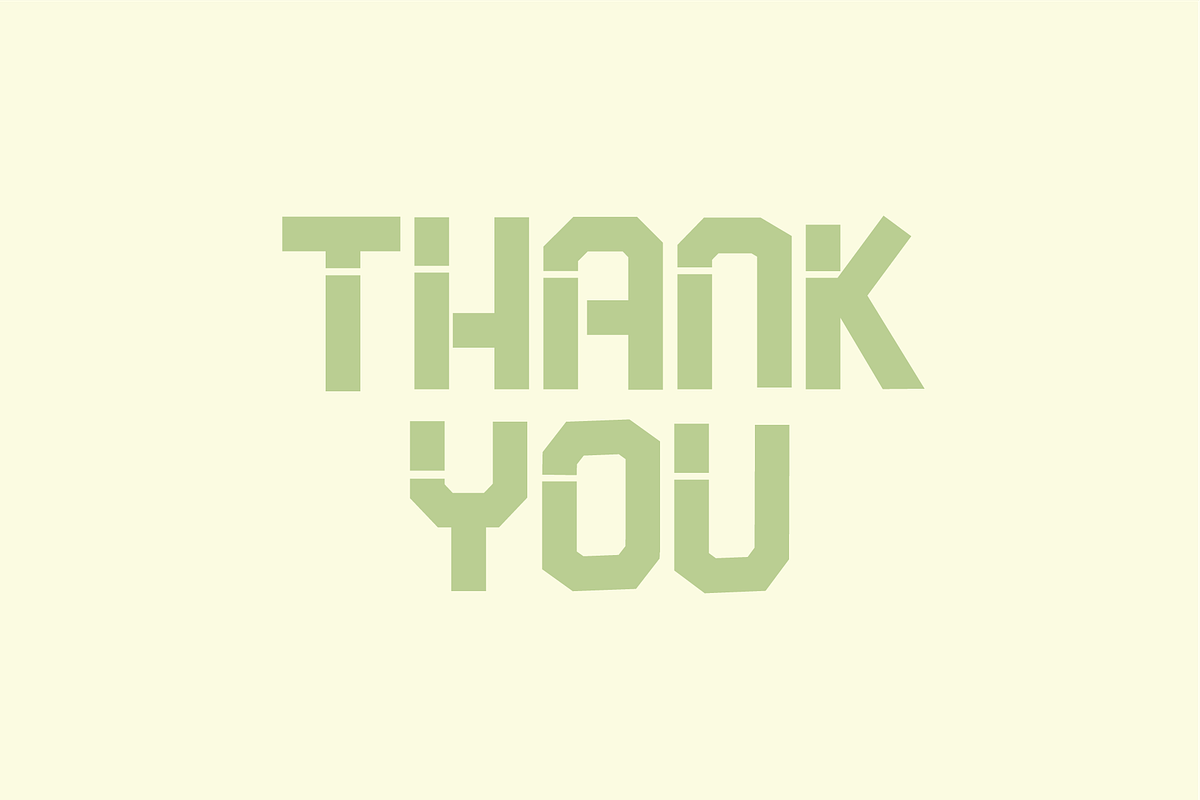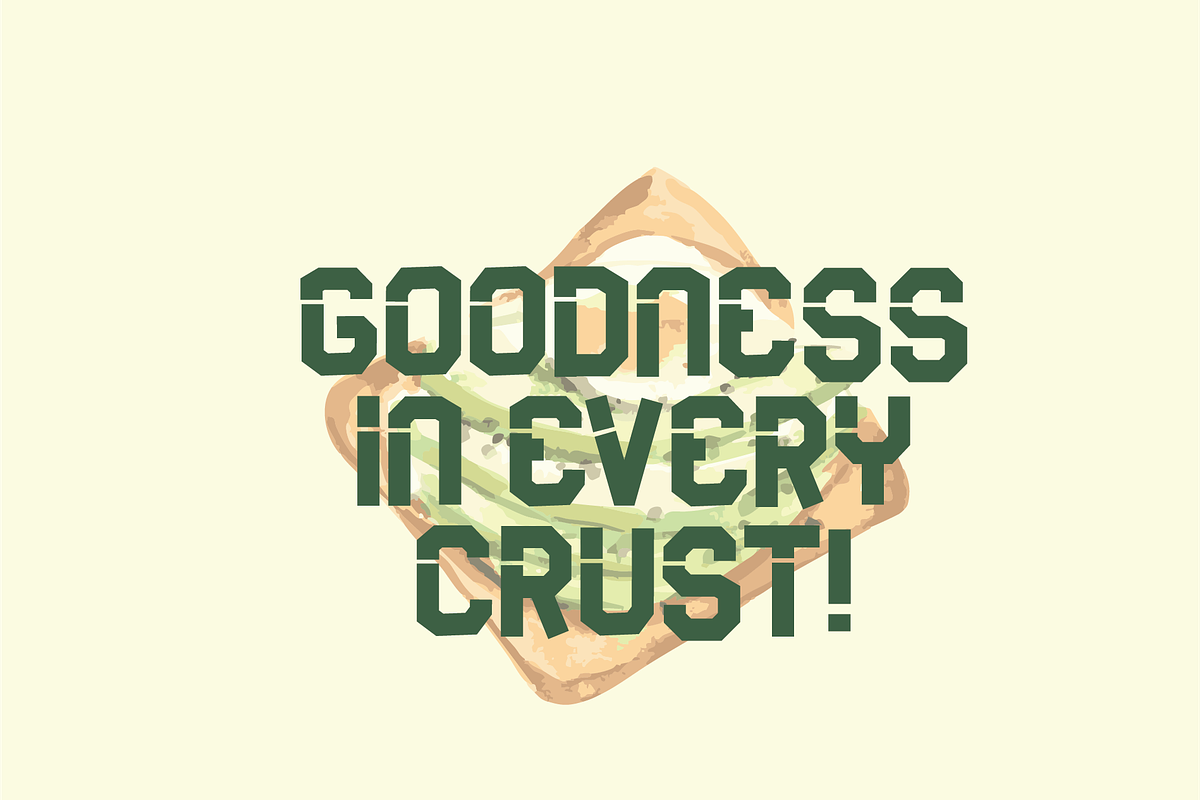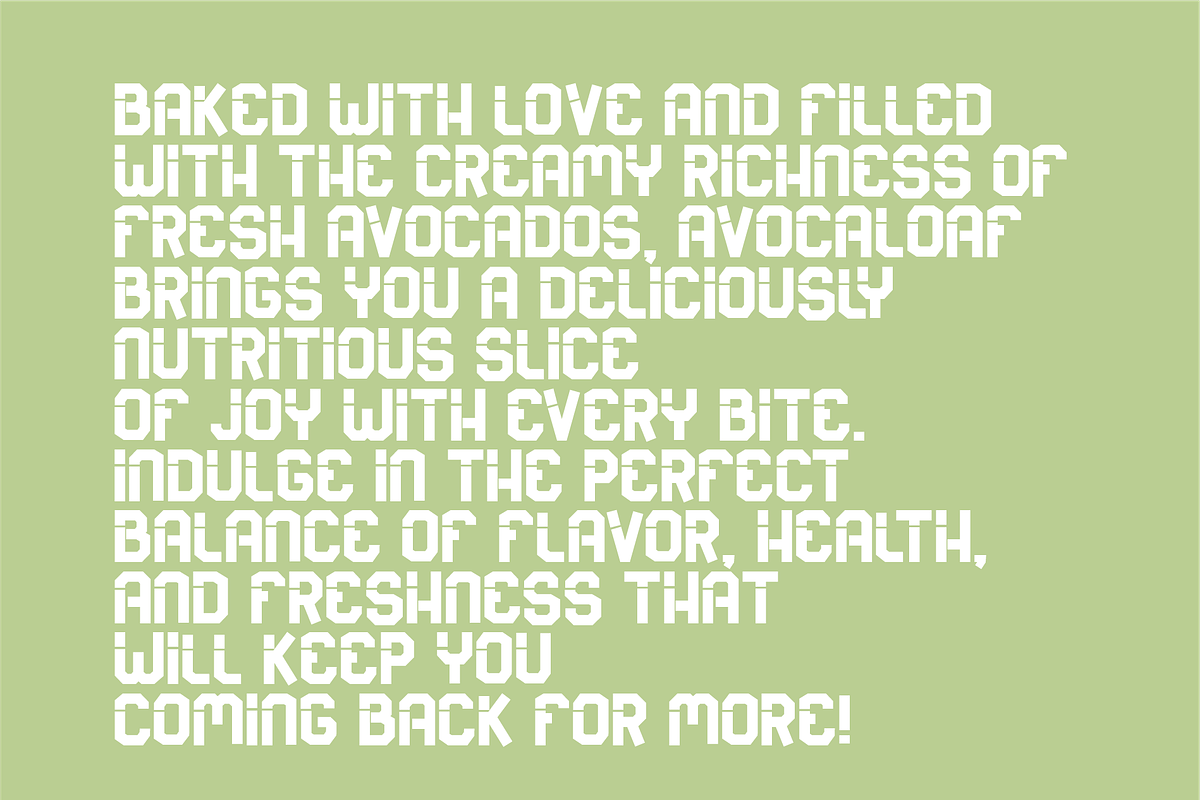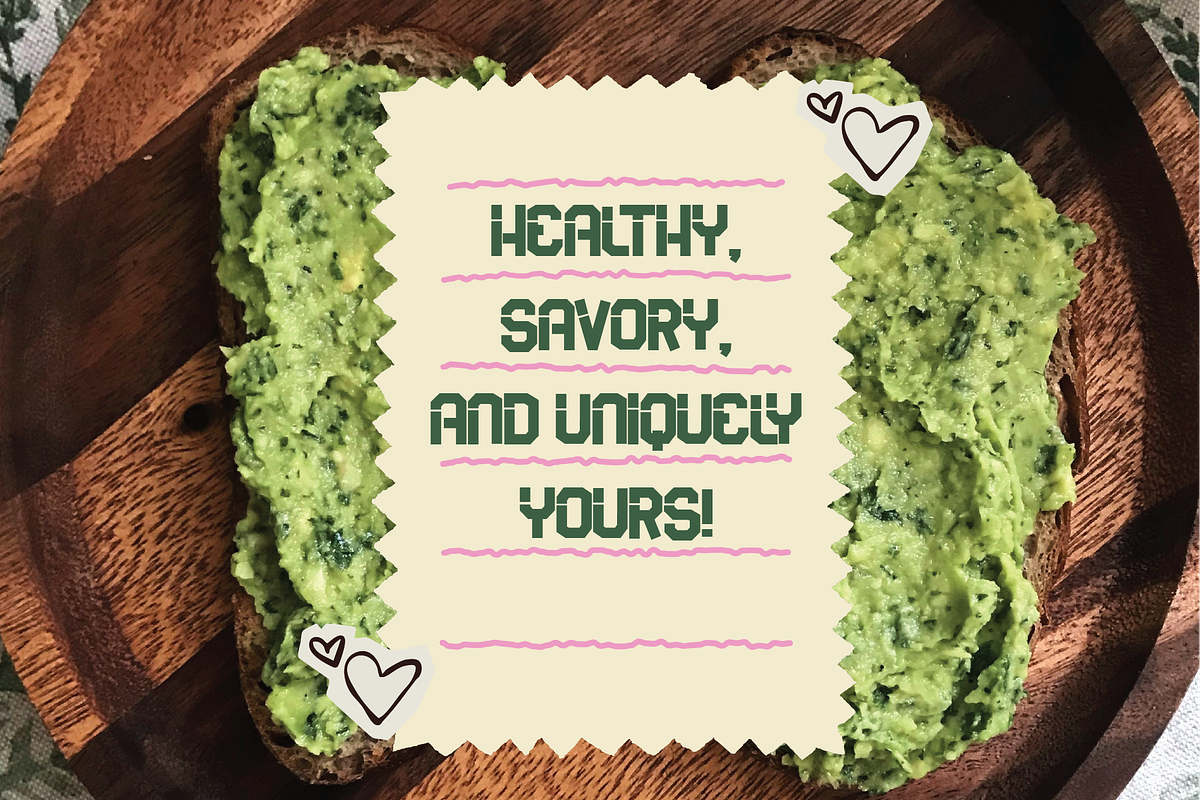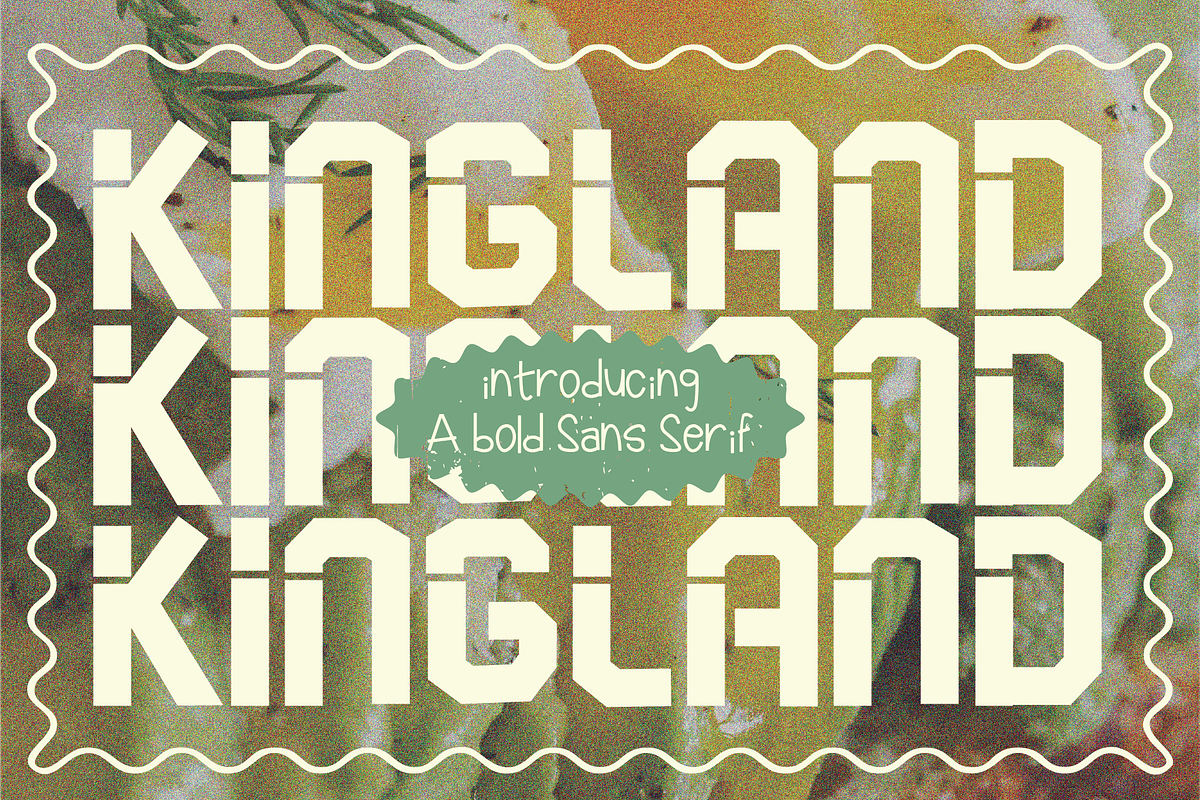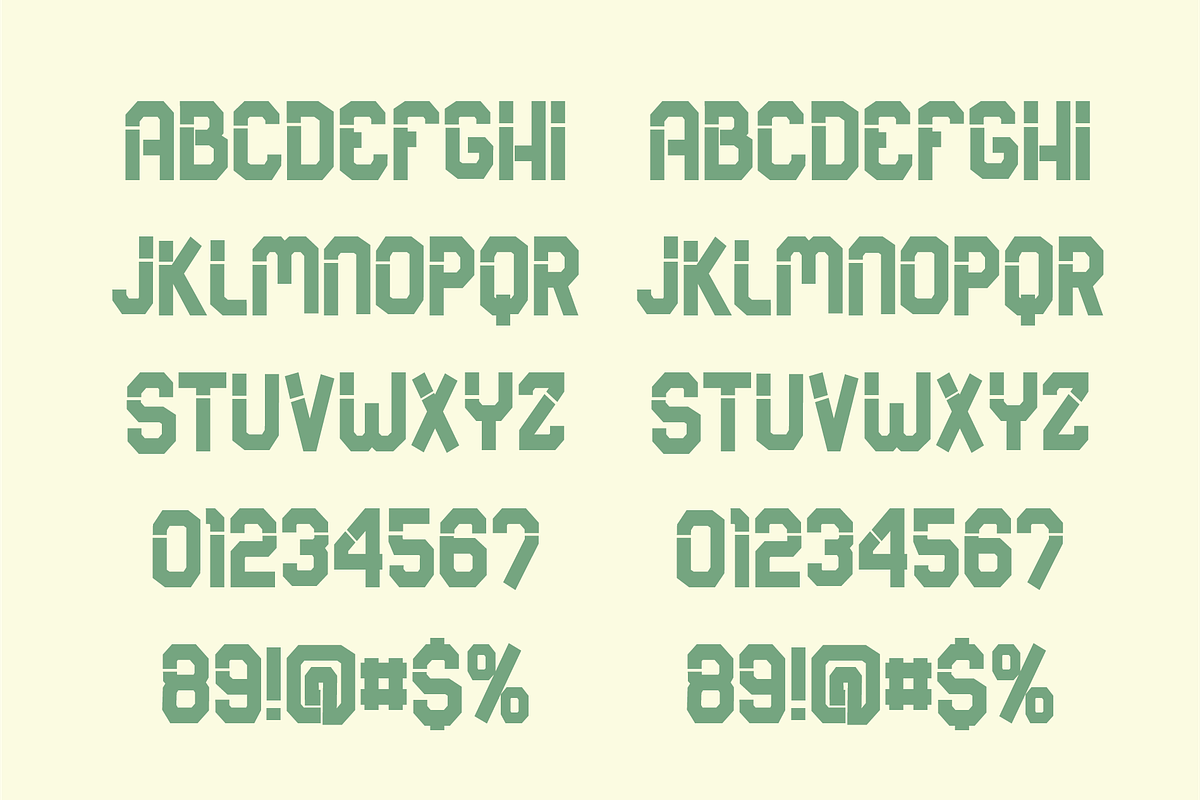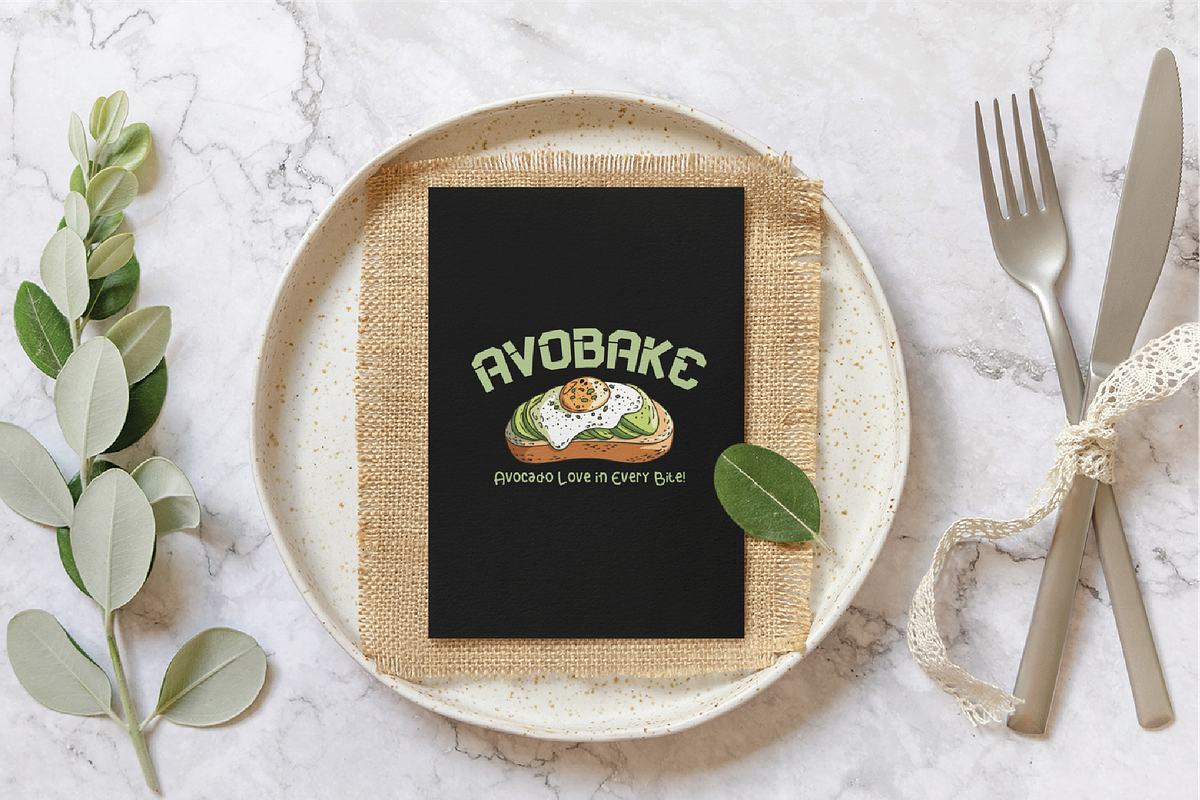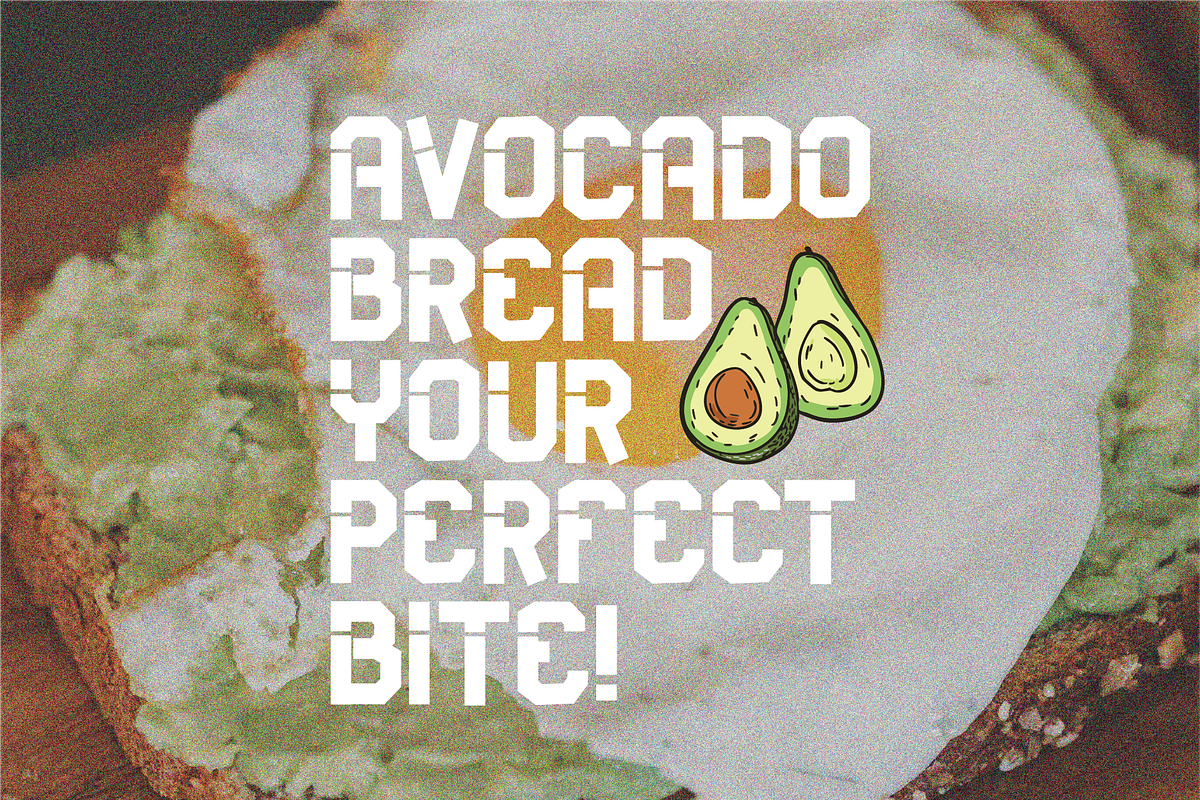
Kingland - Bold Sans Serif
Kingland The font features a bold, angular, and geometric design, with sharp edges and a blocky structure. The use of clean lines and uniform width in the letterforms gives it a modern, industrial feel.
- Numbers, marks and symbols